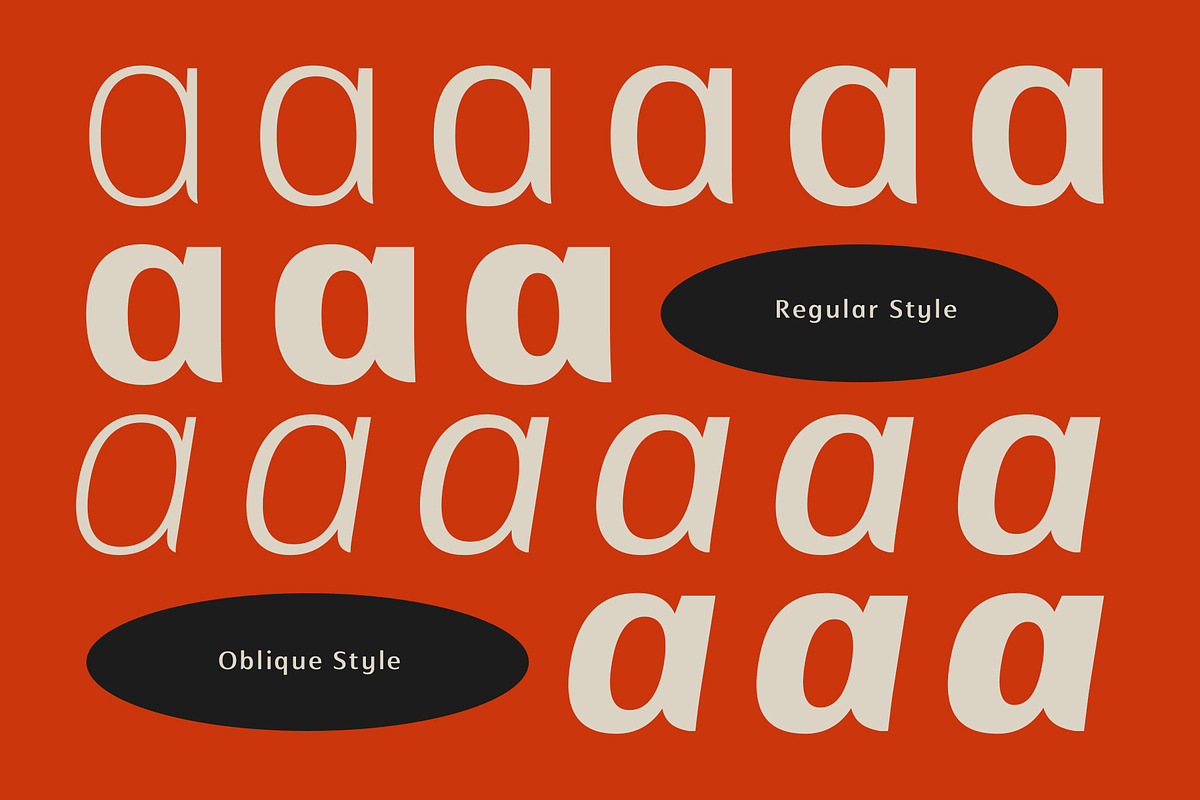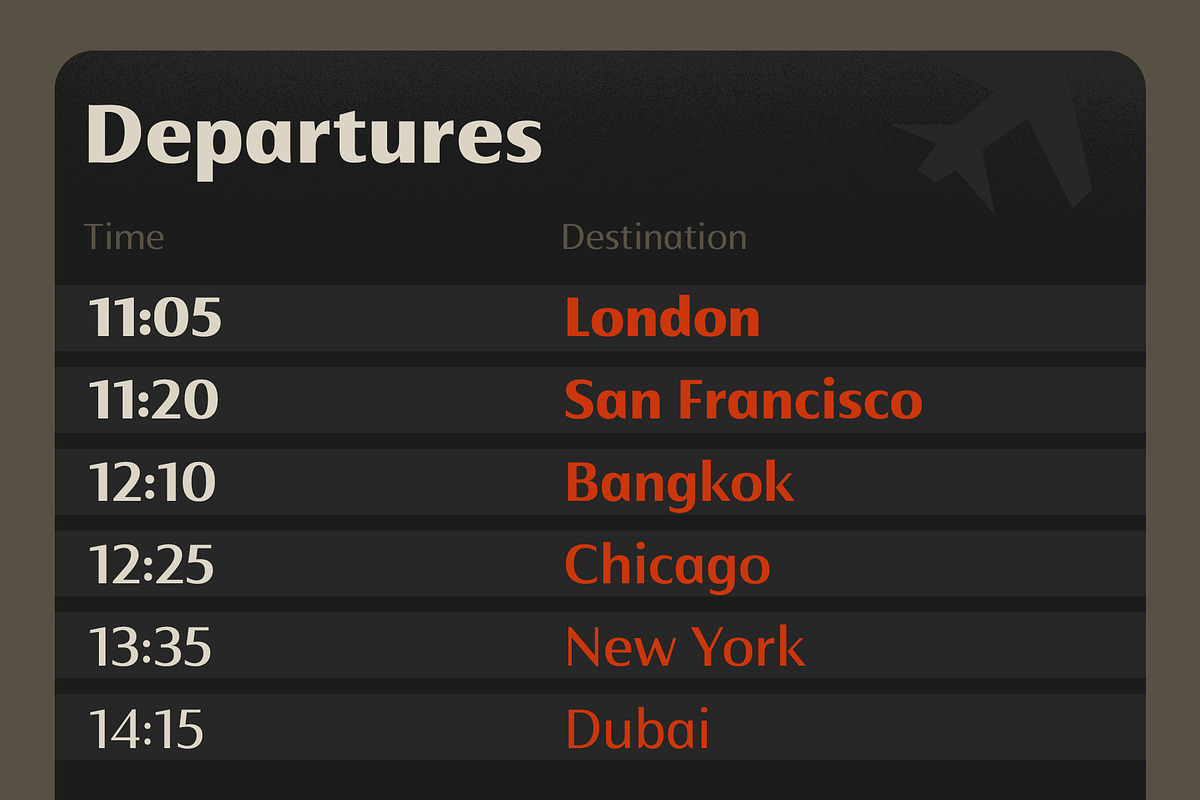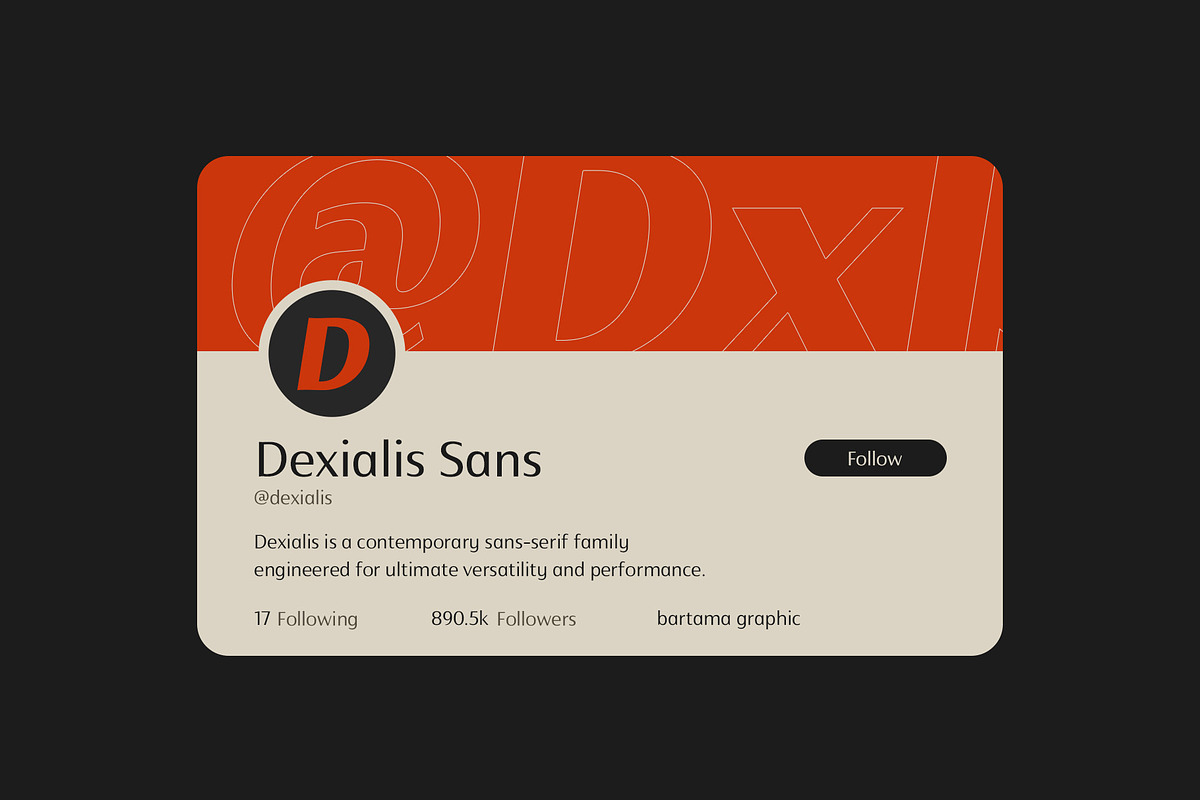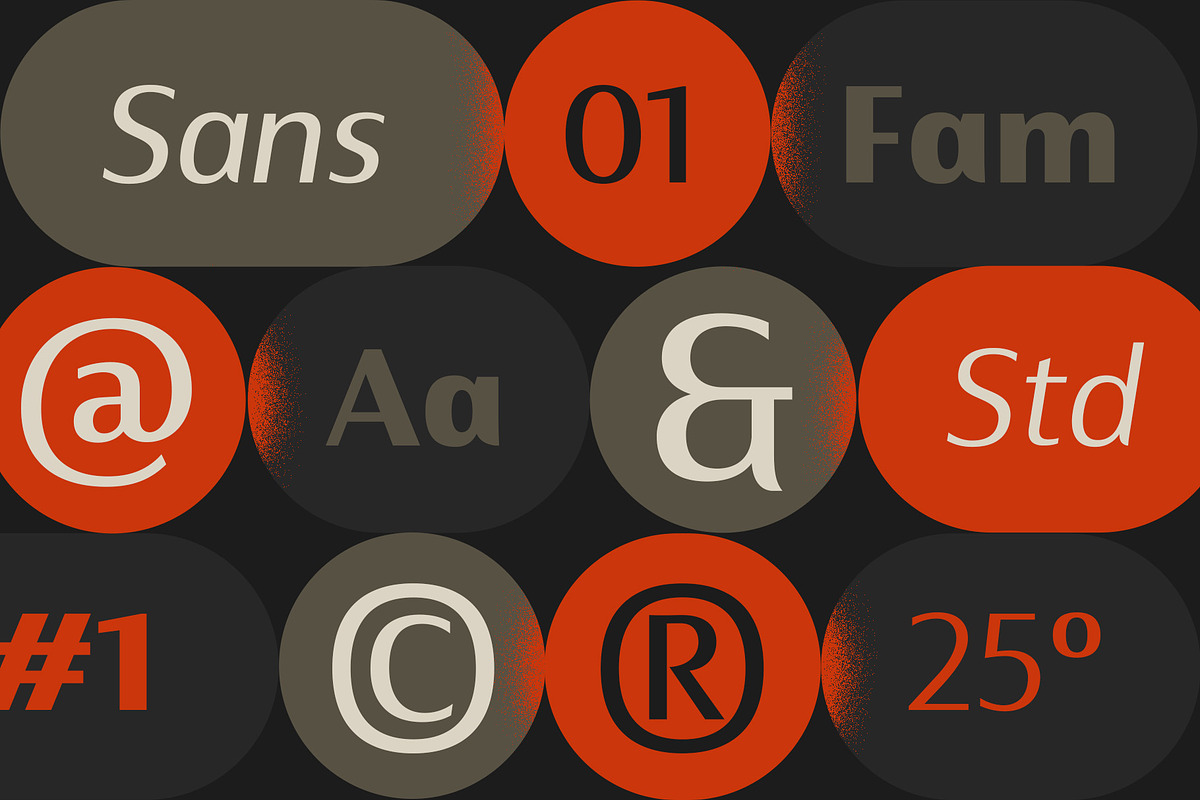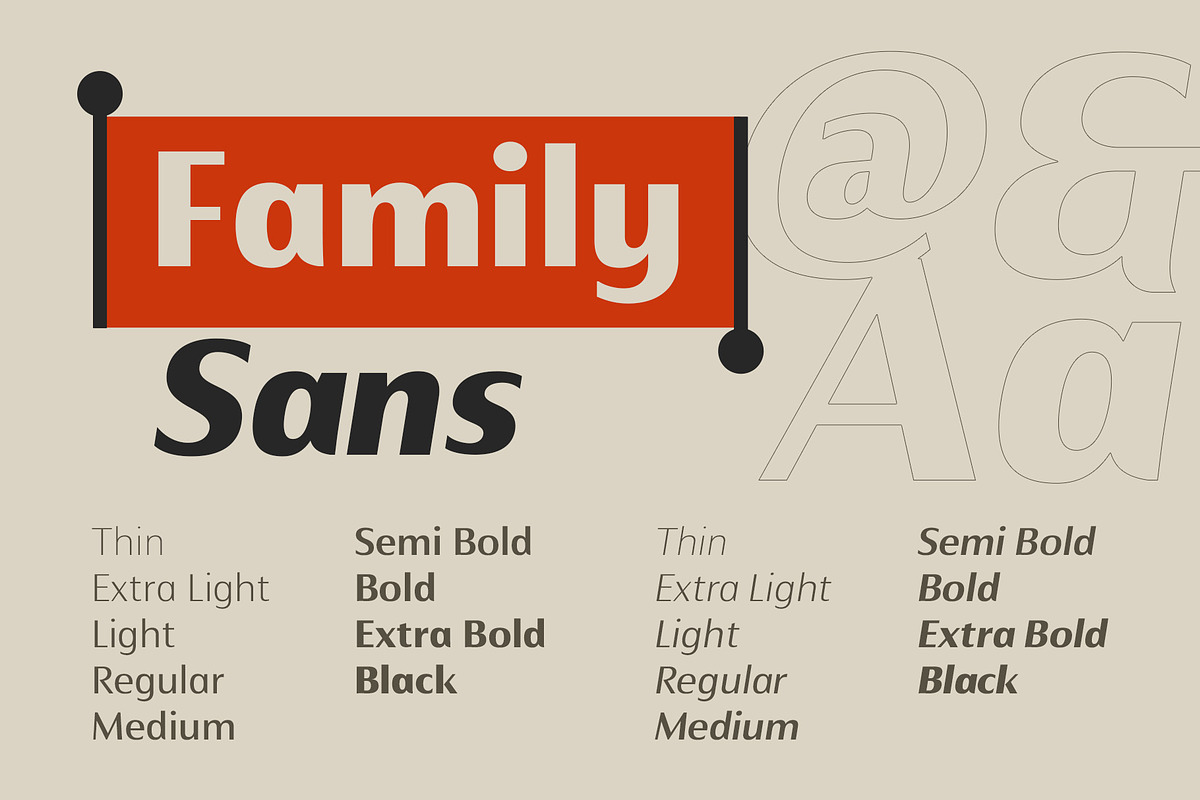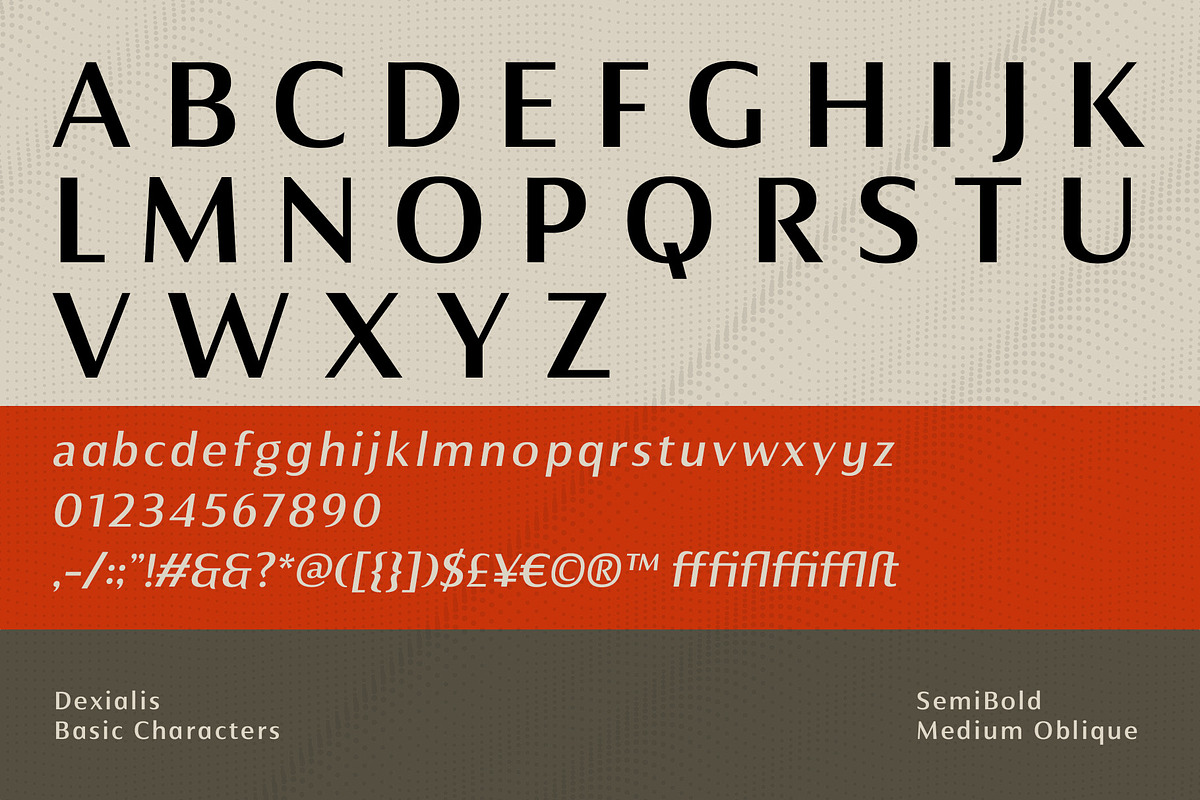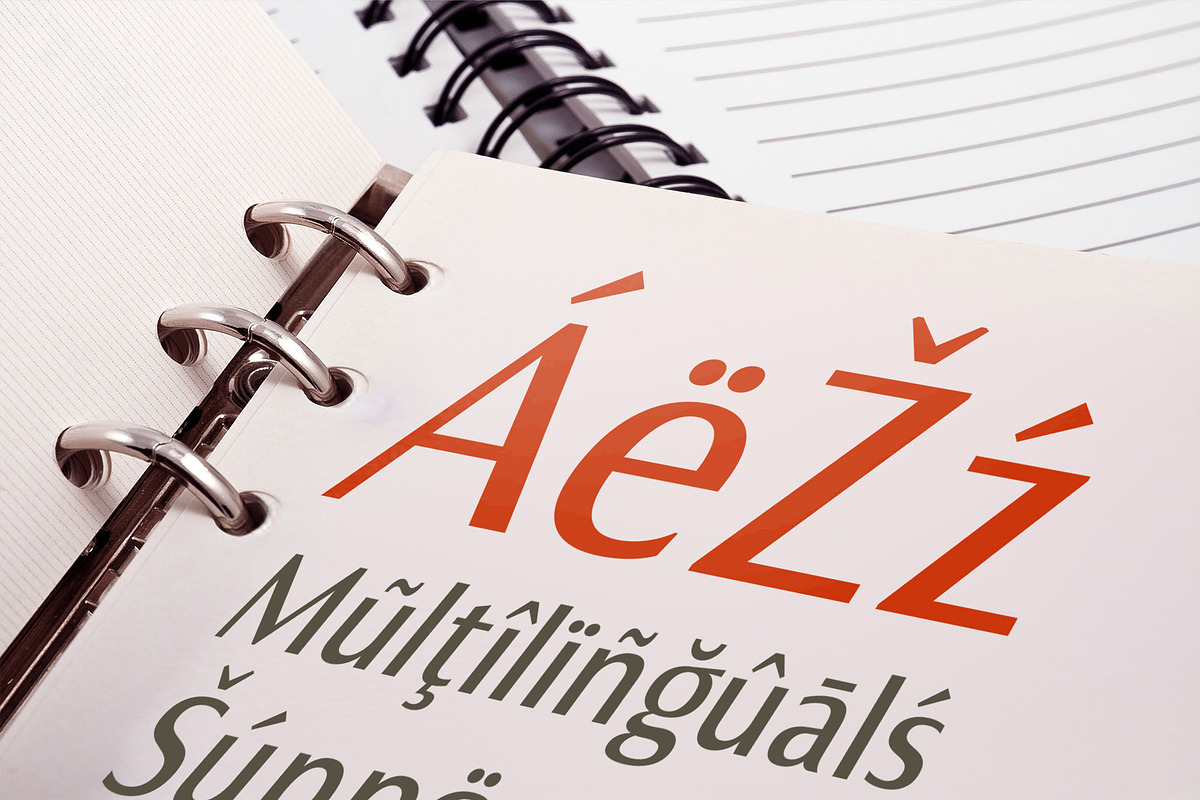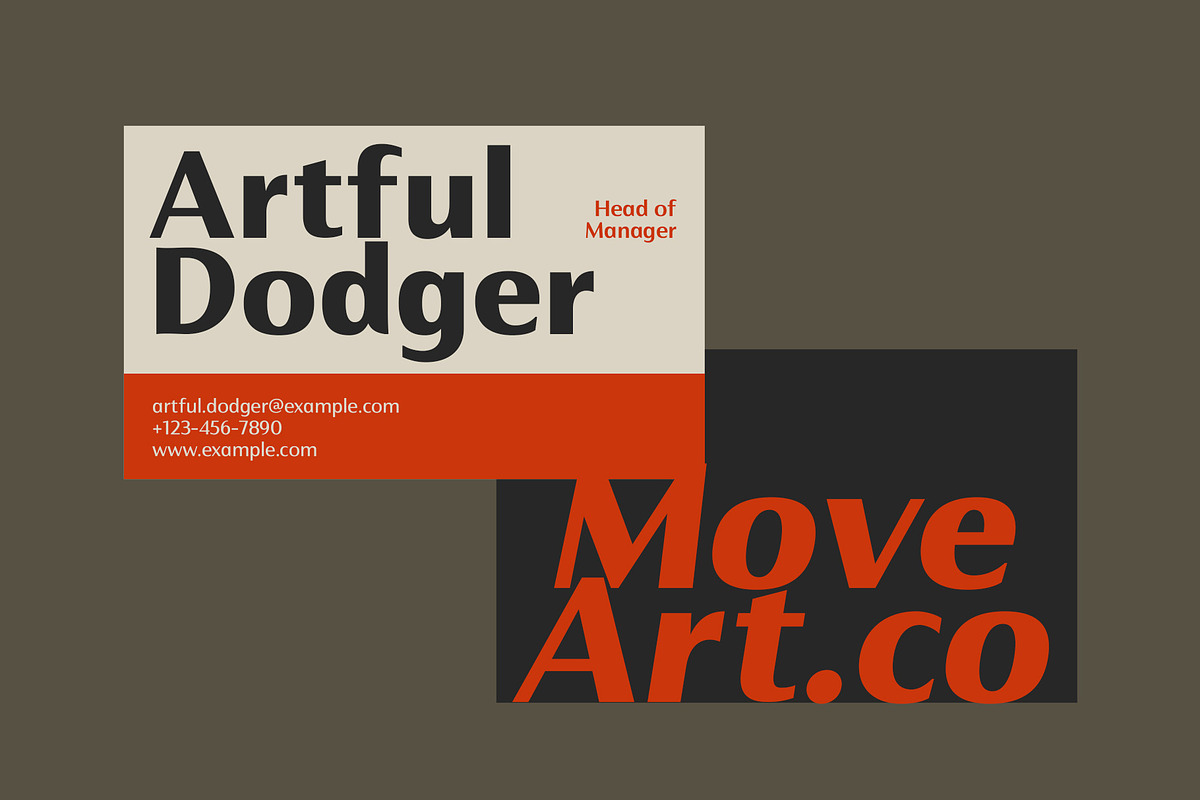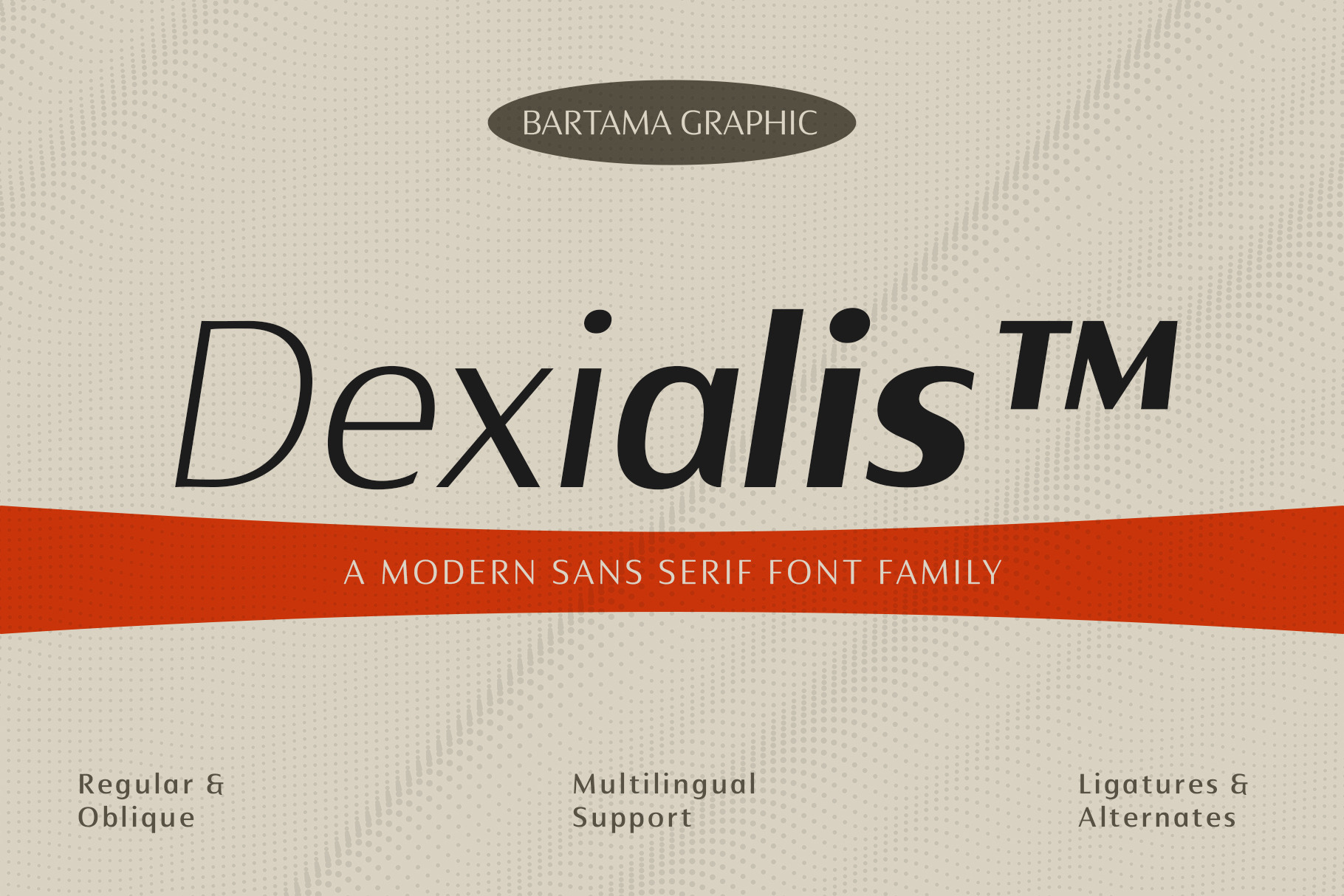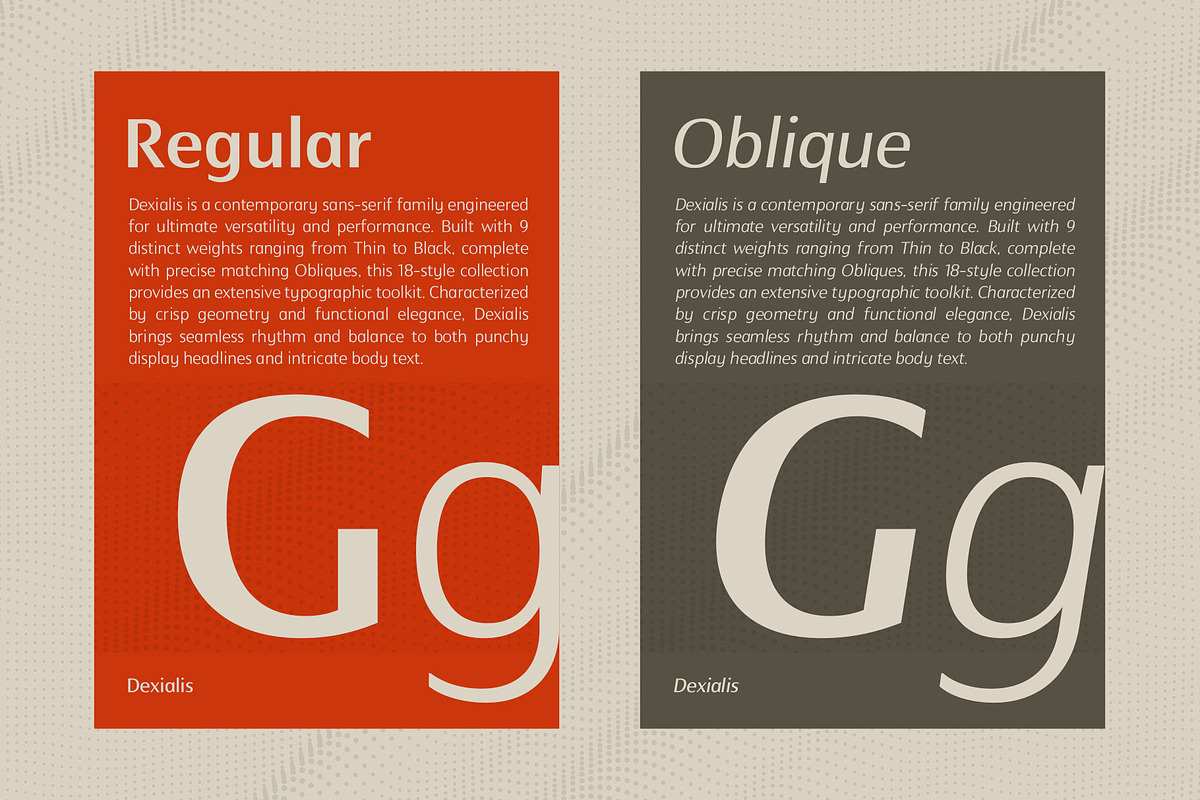
Dexialis - Sans Serif Font Family
Dexialis is a humanist sans serif typeface that brings a warm and expressive character to a clean, contemporary structure. Its subtle contrast between thick and thin strokes gives the letterforms a natural sense of movement, creating a visual impression reminiscent of handwritten forms while maintaining the clarity and simplicity of a sans serif. The result is a typeface that feels refined, approachable, and distinctly human rather than mechanically constructed.
Designed to balance personality with readability, Dexialis works beautifully across both display and text applications. Its organic rhythm and gentle stroke variation make it suitable for branding, editorial design, posters, packaging, web design, and other creative projects where a modern yet human touch is desired. Dexialis offers a fresh interpretation of the humanist sans serif, combining functional simplicity with the warmth and individuality of human writing.
Dexialis comes in a complete set of 18 styles, covering weights from Thin through Black alongside their corresponding Oblique counterparts. The wide range of weights allows the family to shift effortlessly from delicate and understated to bold and commanding, making it easy to create contrast, emphasis, and visual rhythm throughout a design.
18 Font Styles (9 Weights + Oblique Styles)
Essential Symbols & Punctuation
Included Styles
Thin
Thin Oblique
Extra Light
Extra Light Oblique
Light
Light Oblique
Regular Oblique
Medium
Medium Oblique
Semi Bold
Semi Bold Oblique
Bold
Bold Oblique
Extra Bold
Extra Bold Oblique
Black
Black Oblique